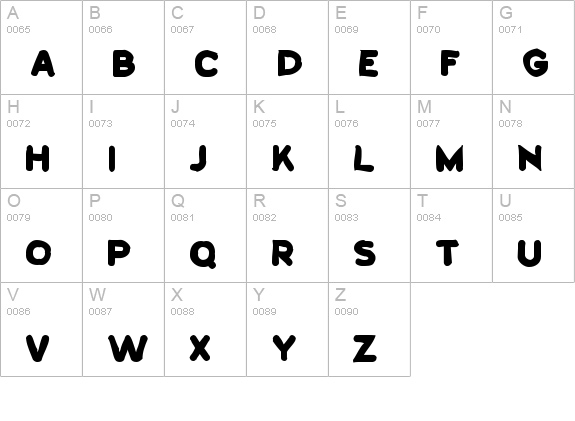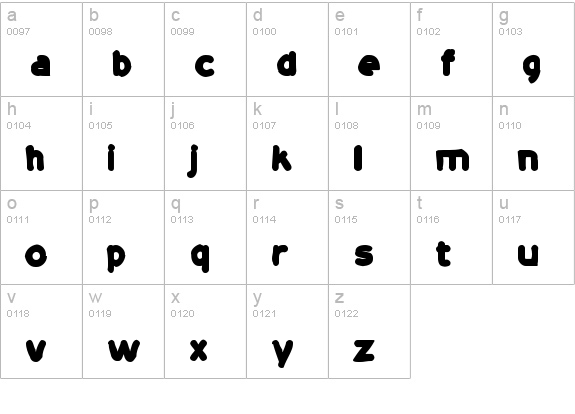
20th Century Ink Font Details
Introducing the exquisite 20th Century Ink font, a stunning typeface that beautifully captures the essence of vintage charm and artistic flair. With its unique hand-drawn style and intricate details, this font is perfect for adding a touch of elegance to any project. What sets 20th Century Ink font apart is its free-flowing lines and organic texture, giving it a distinct character that sets it apart from other fonts. Whether you're looking to create eye-catching headlines, elegant invitations, or stylish branding, this font is sure to make a lasting impression. Best of all, 20th Century Ink font is freely available to download at FontsMarket.com, making it accessible to everyone looking to add a touch of sophistication to their designs. Don't miss out on this incredible font that combines timeless elegance with modern appeal. Download 20th Century Ink font today and elevate your projects to new heights of creativity and style.